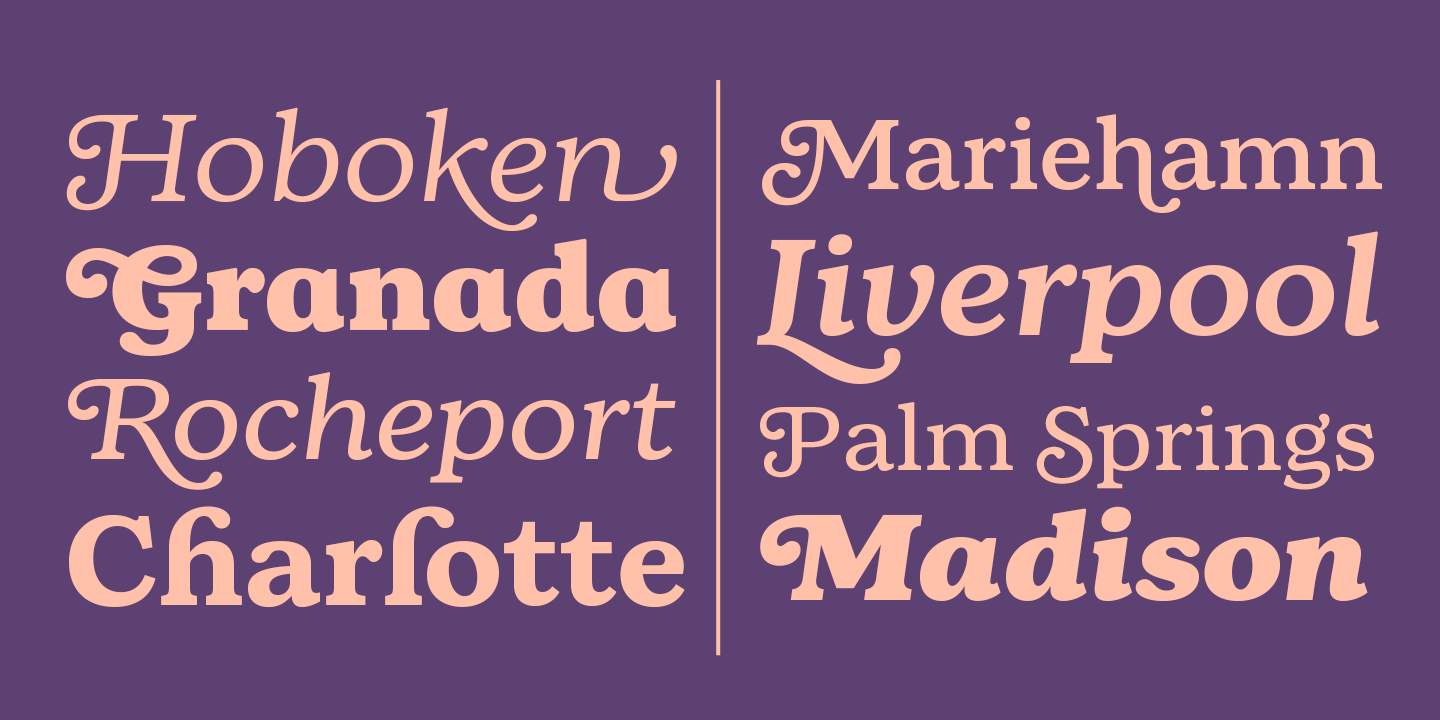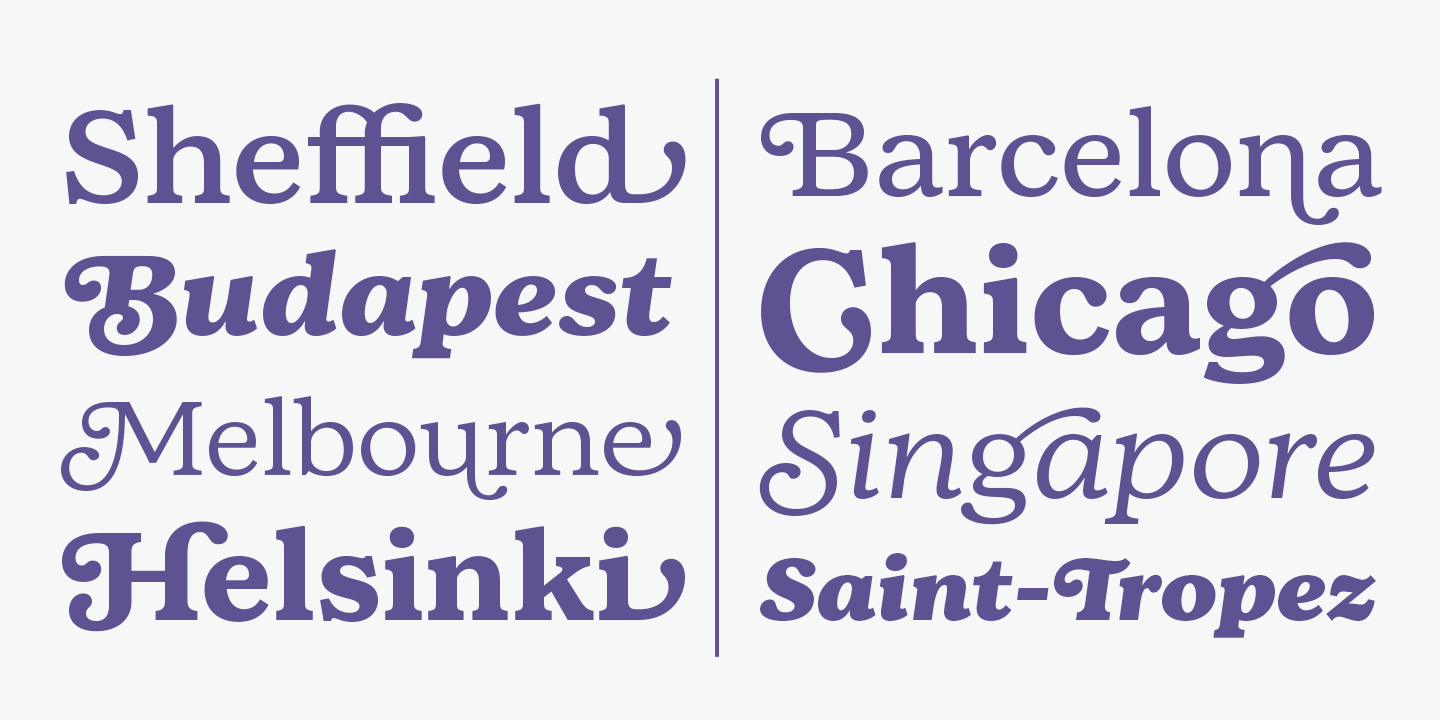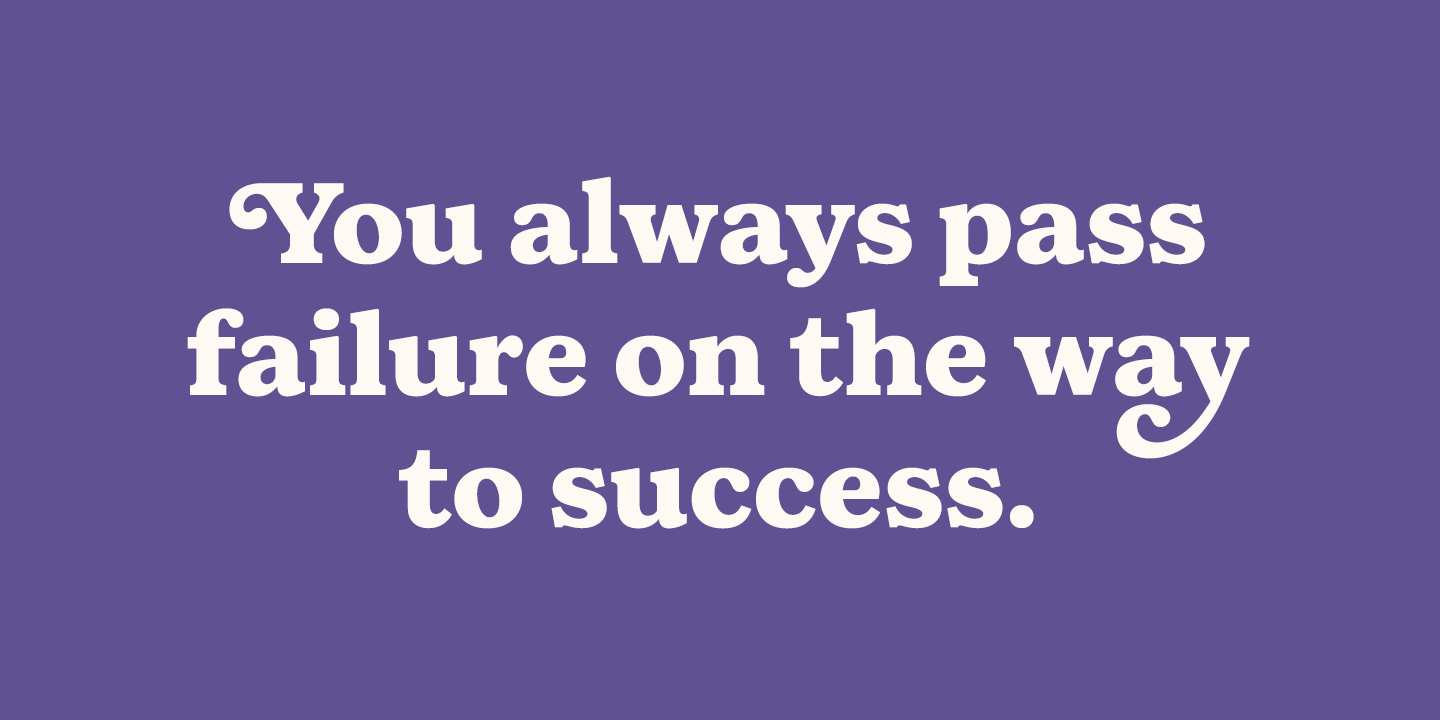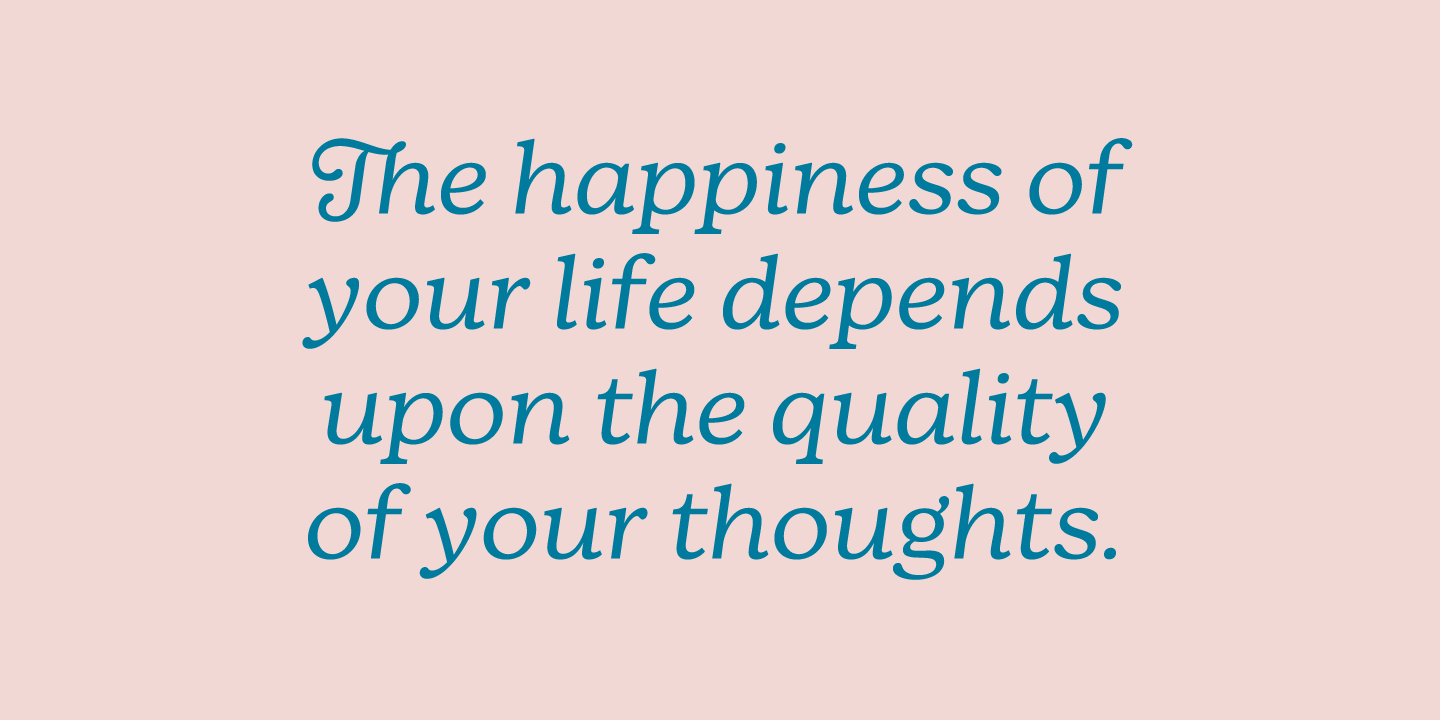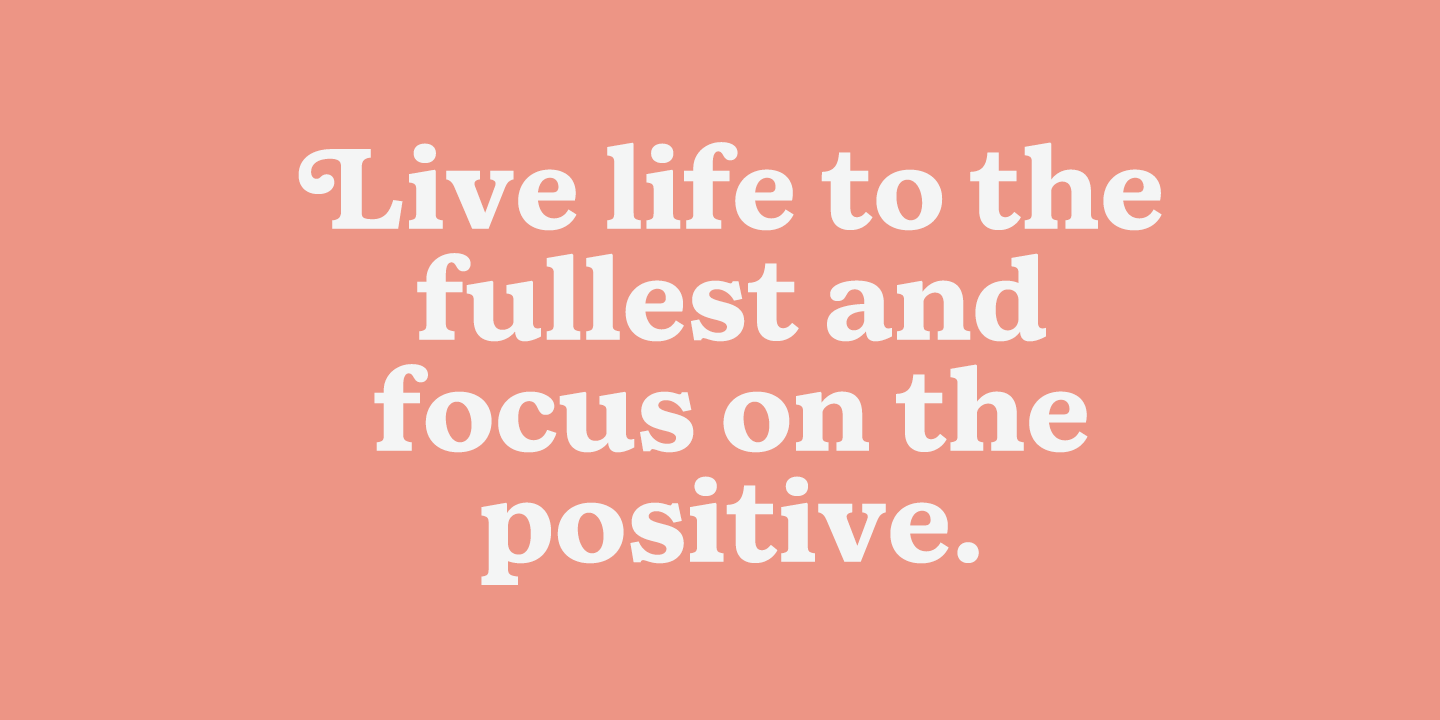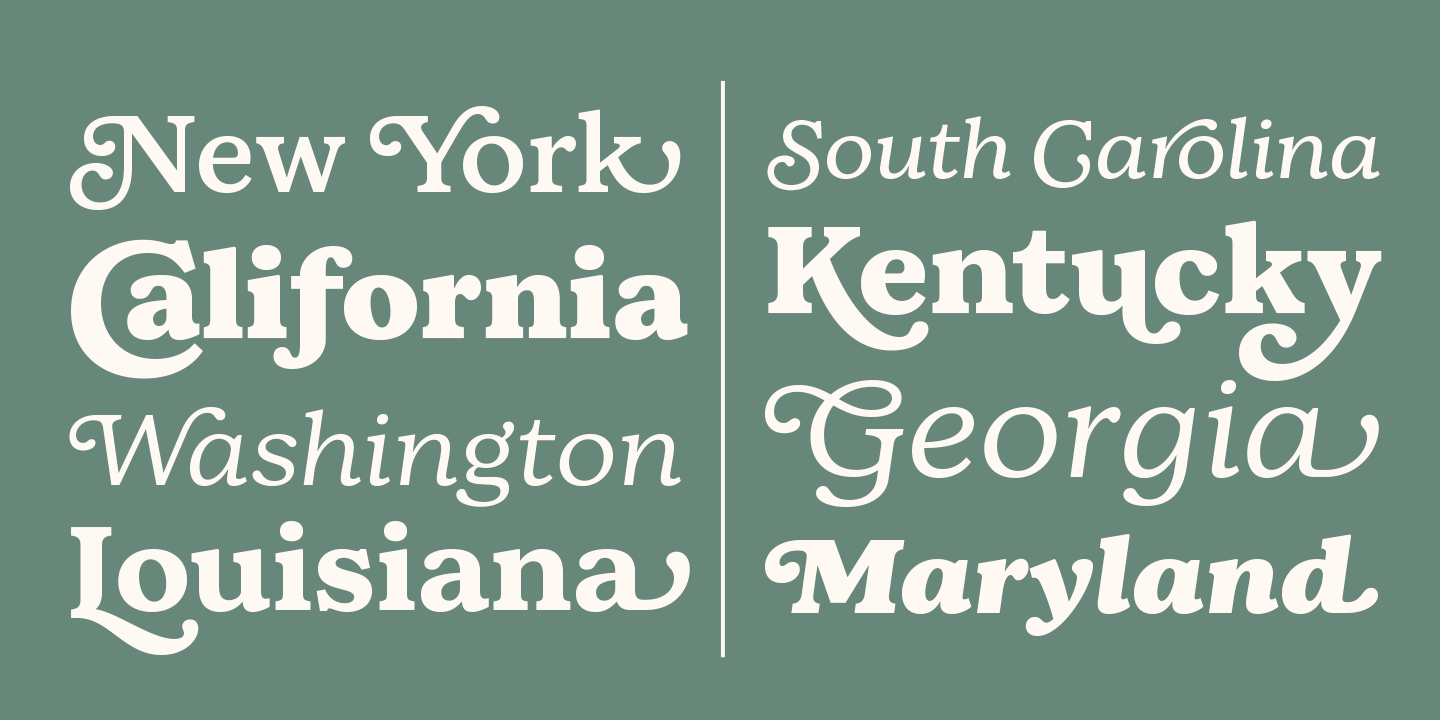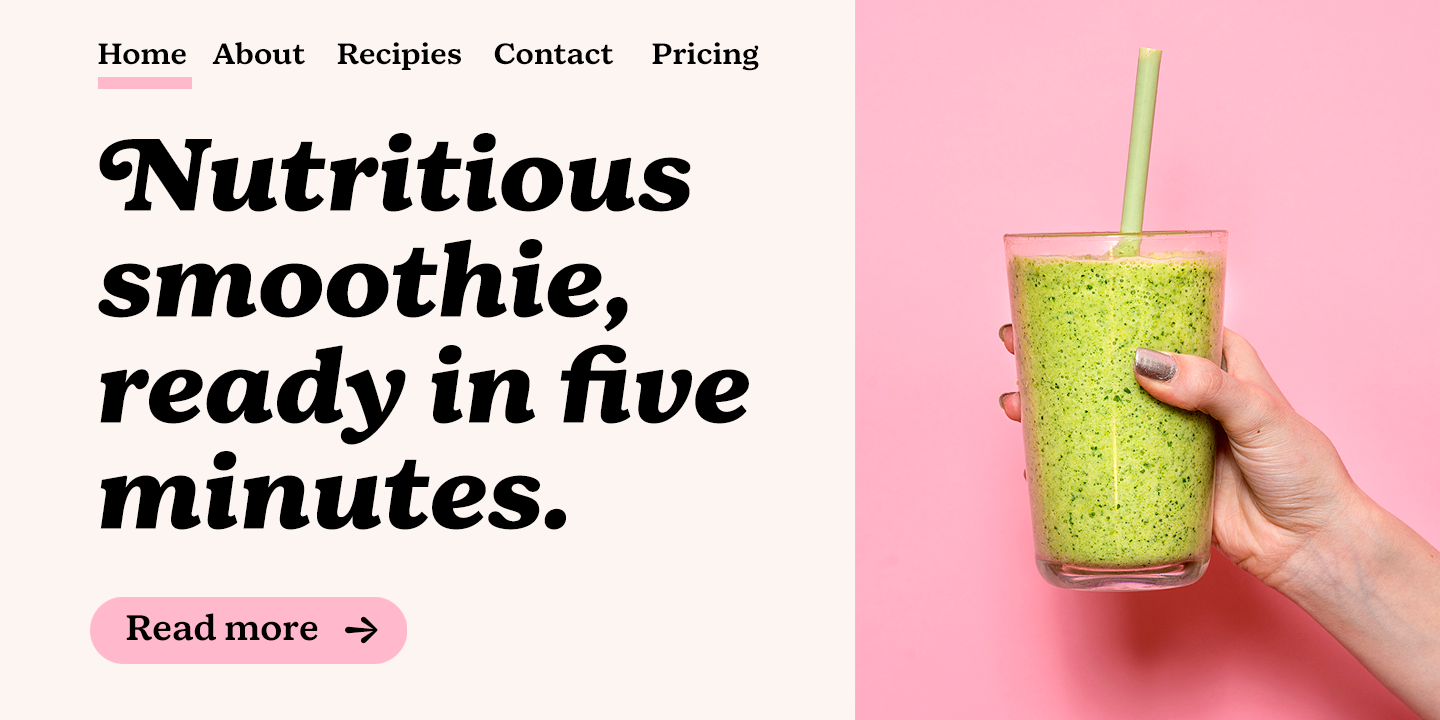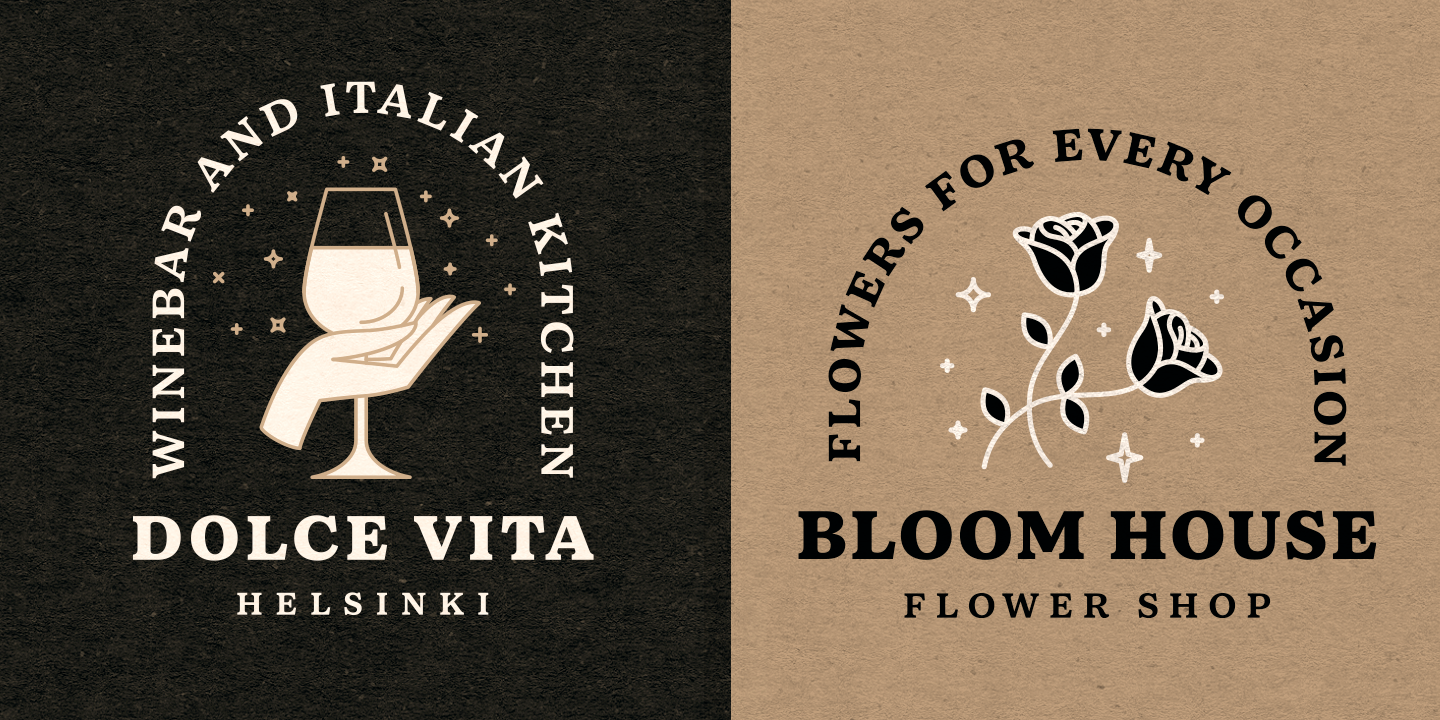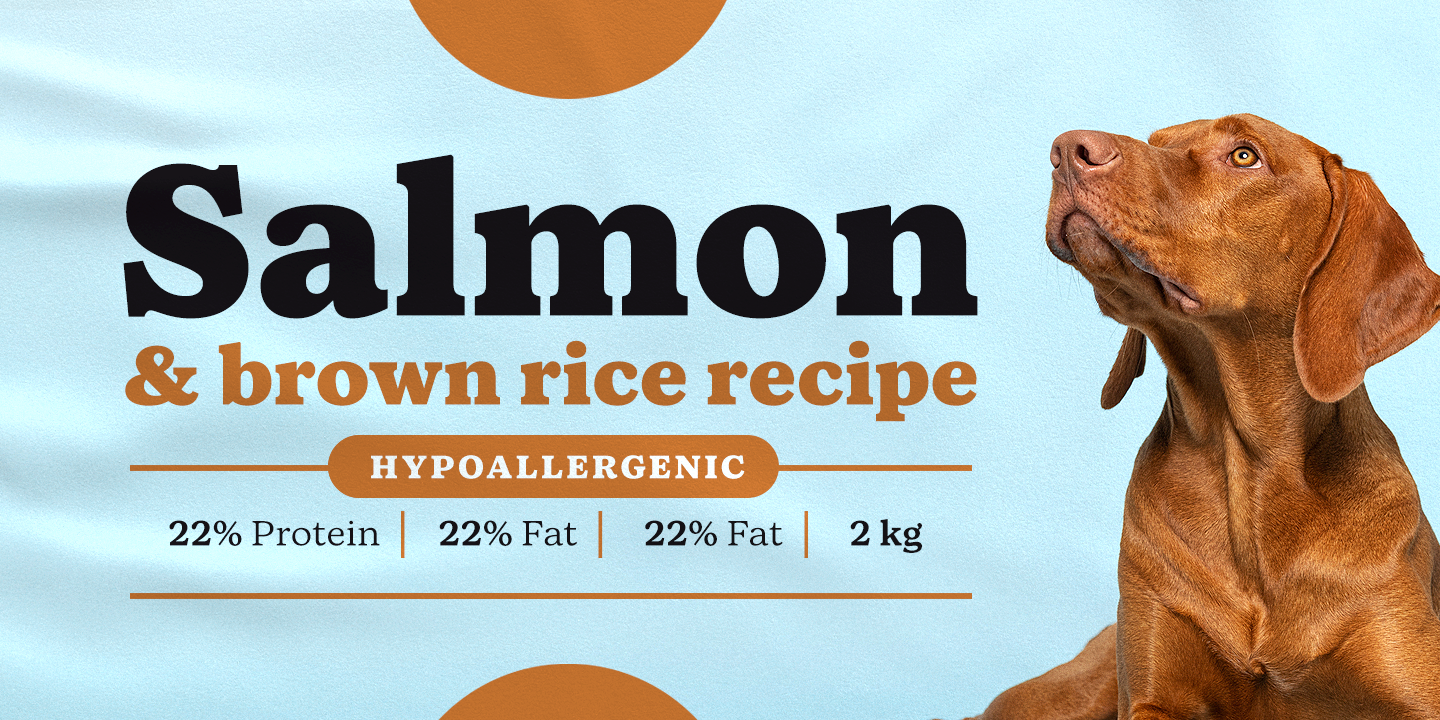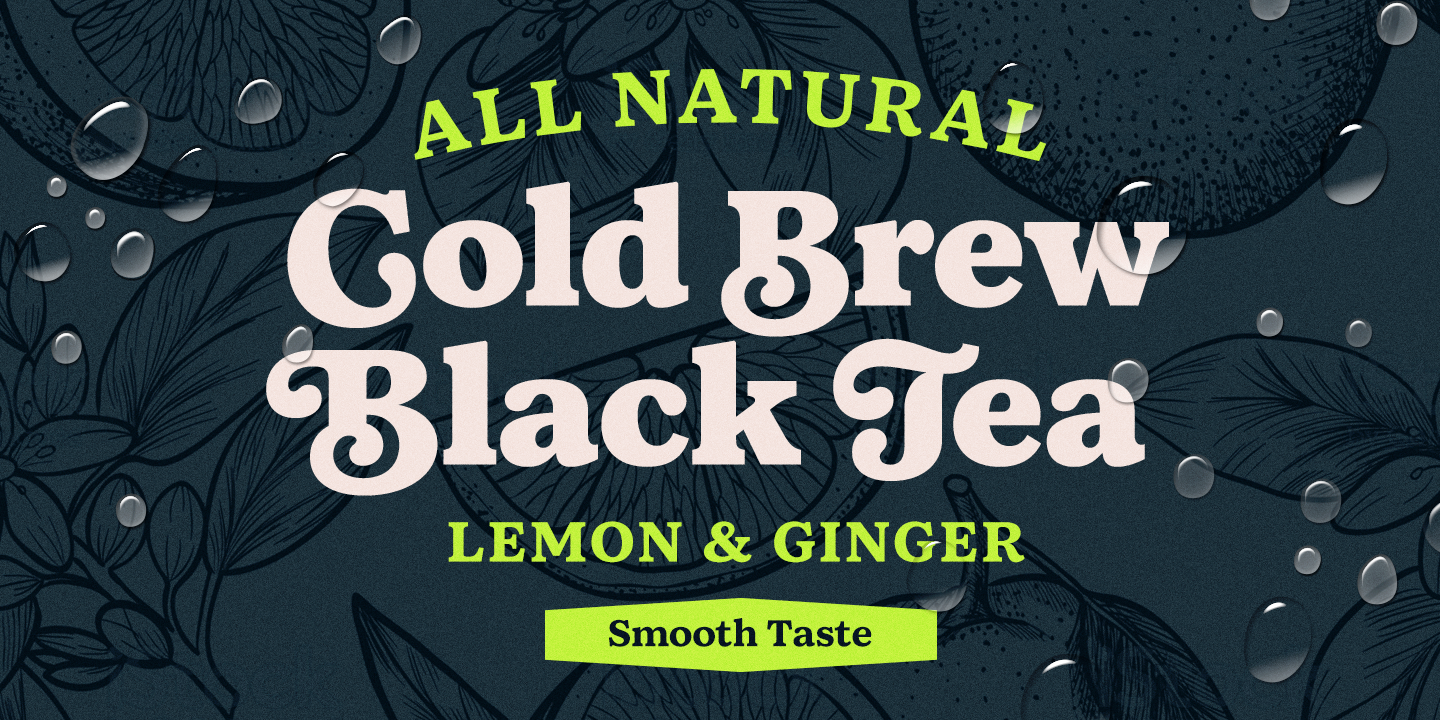
Bogue Slab
Bogue is a slab serif type family of 8 weights and matching italics. Bogue Slab comes with a lots of stylistic alternates that makes it very versatile in various uses like logos, editorial design, branding, web design, package design and much more. You can use it to create short powerful phrases and headlines and also use it in longer text like lead paragraphs and body texts. So if you are looking for a versatile slab serif font you have found it!